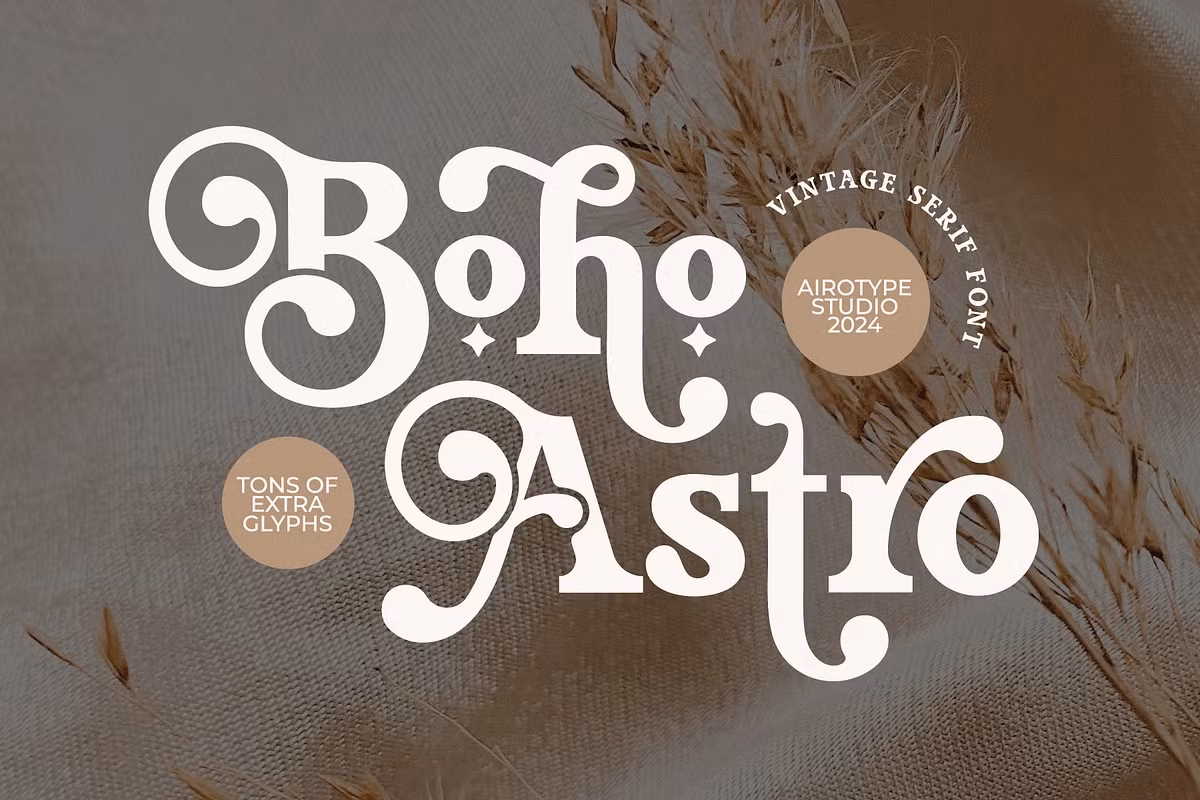
You must purchase this font for commercial use. However, you can download Boho Astro Font - Vintage Slab Serif Free Download for testing purposes. Boho Astro is a stylish and unique vintage slab serif font that combines bold, strong letterforms with a touch of retro charm. Perfect for branding, logo design, posters, apparel, and product packaging, this font adds character and a timeless, earthy feel to any project.
With its solid structure and distinctive slab serifs, Boho Astro brings both strength and elegance, making it ideal for projects that require a vintage yet contemporary touch. Its versatility works well for a variety of creative uses, whether you’re designing for a bohemian brand, crafting a trendy poster, or creating eye-catching headlines.